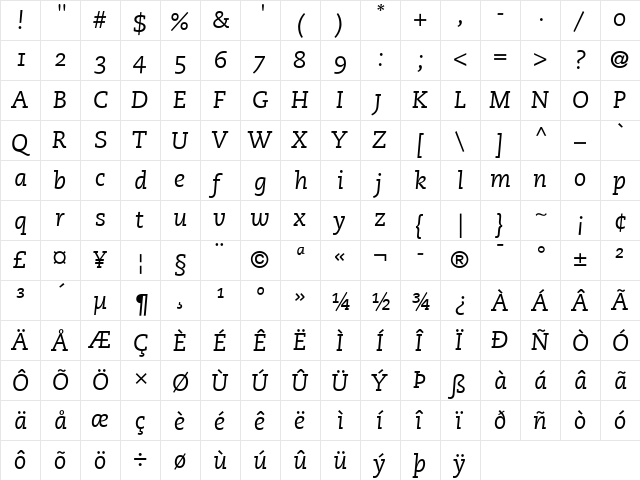
Caecilia RomanOsF Italic
Design Context for Caecilia RomanOsF Typeface
Caecilia RomanOsF is a composed and adaptable typeface that performs quietly and consistently across a wide range of design contexts. The dynamic lean of this cut emphasises speed and emphasis in any layout.
Pro Tip: Use Caecilia RomanOsF for emphasis, pull quotes, and subheadings where its slanted energy can add rhythm to the layout.